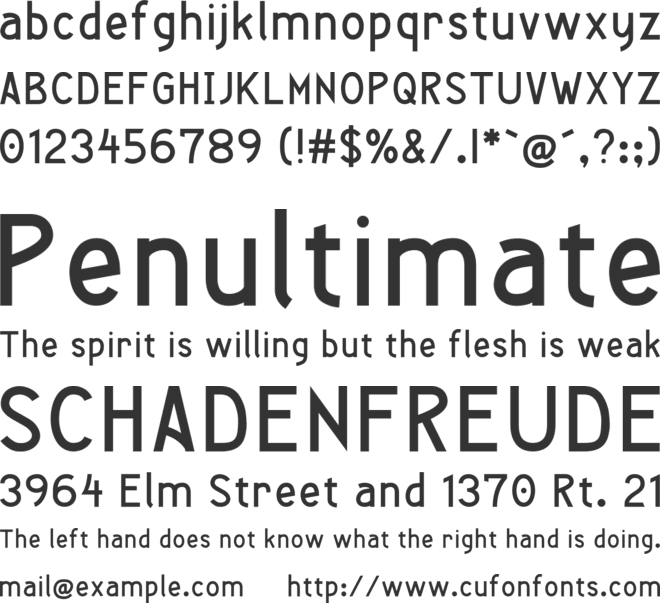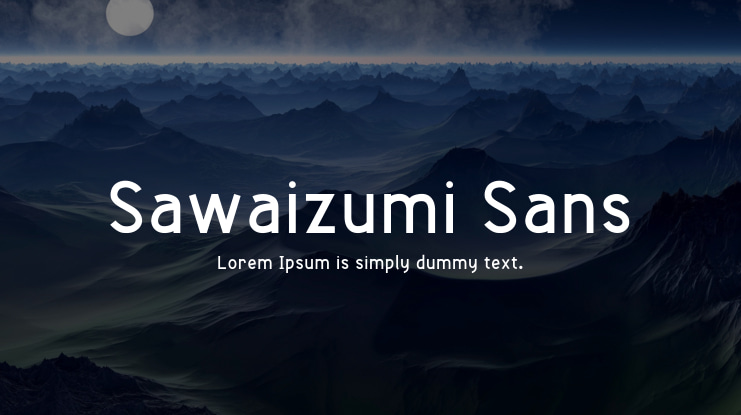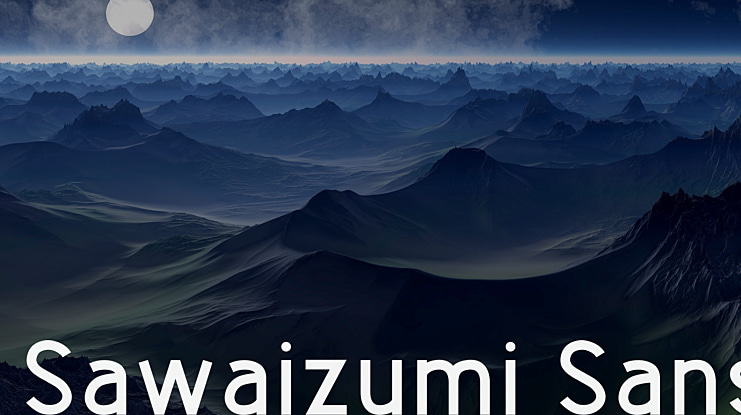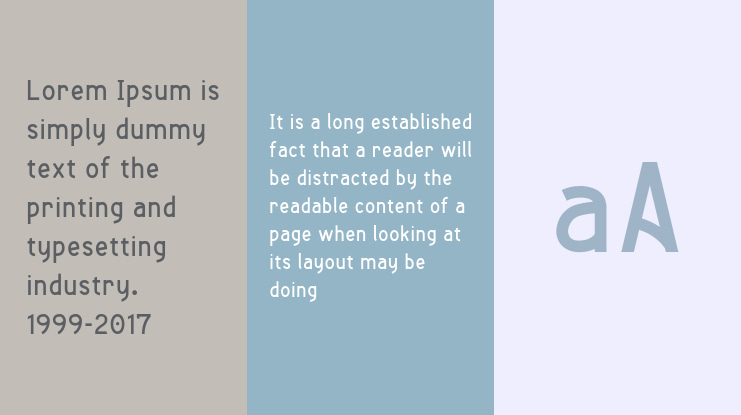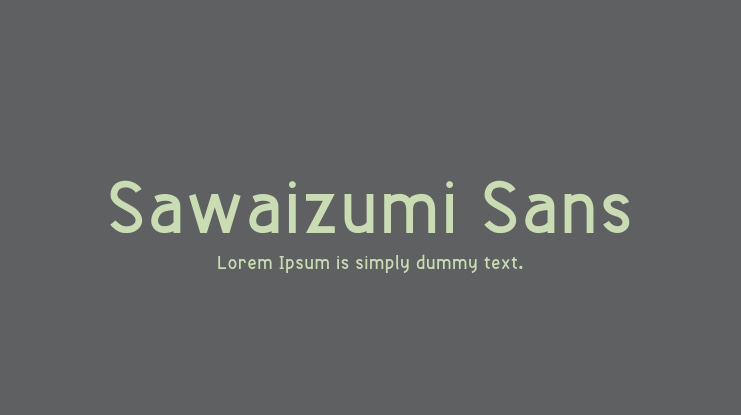
Sawaizumi Sans Font
Sawaizumi Sans is a kind-of-art-deco sans serif font that looks like some old sign or film title lettering. It was named after Healin' Good Pretty Cure protagonist Chiya Sawaizumi, whose Pretty Cure form of her is named Cure Fontaine.